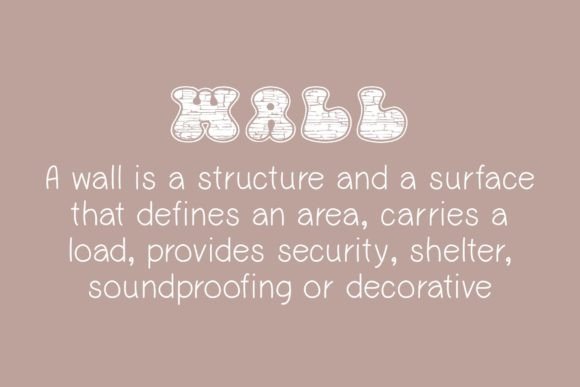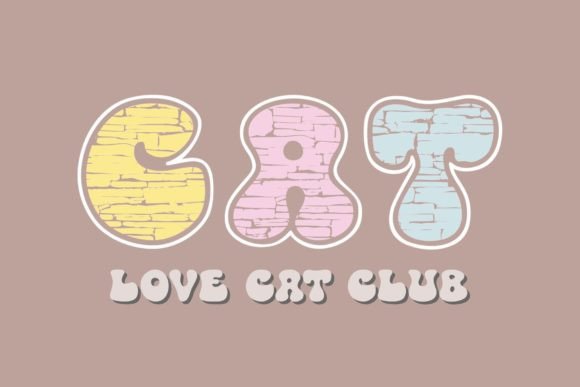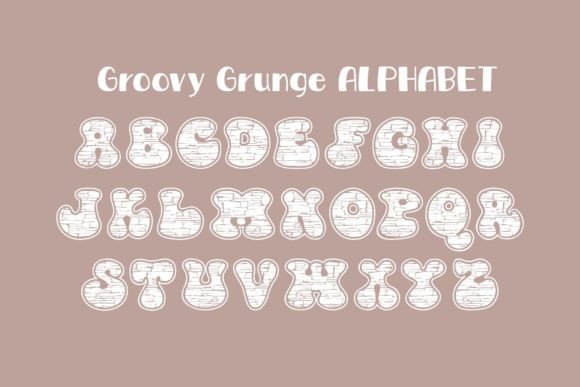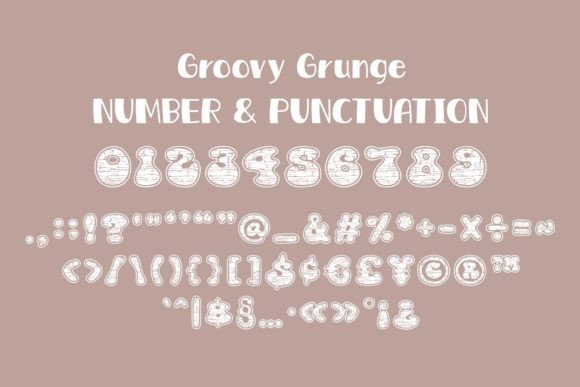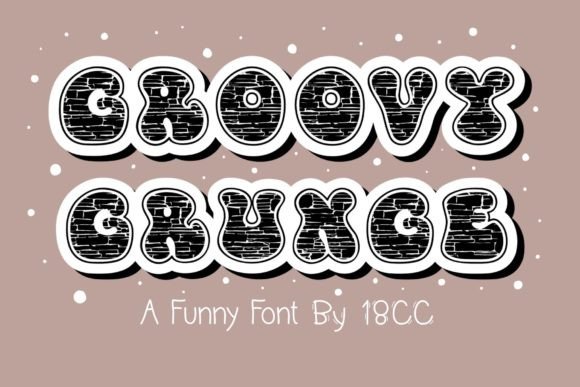
Groovy Grunge Font: The Perfect Addition to Your Design Arsenal
Are you a designer or crafter looking for a unique and eye-catching font to elevate your projects? Look no further than the Groovy Grunge Font! This vintage-inspired font is a game-changer for anyone seeking to add a touch of nostalgia and edginess to their designs. In this article, we’ll dive into the world of Groovy Grunge and explore its features, uses, and benefits.
What is Groovy Grunge Font?
Groovy Grunge is a carefully crafted font that embodies the spirit of the 70s and 80s, with a dash of modern grunge flair. This font is perfect for designers and crafters who want to add a distinctive touch to their work, whether it’s for logos, branding, social media graphics, or DIY projects. With its distressed and worn look, Groovy Grunge Font is sure to make your designs stand out from the crowd.
Key Features of Groovy Grunge Font
- Vintage Inspiration: Groovy Grunge Font draws inspiration from the classic fonts of the 70s and 80s, with a modern twist.
- Grunge Texture: The font features a unique grunge texture that gives it a worn, distressed look.
- Highly Versatile: Groovy Grunge Font can be used for a wide range of projects, from logos and branding to social media graphics and DIY crafts.
- Easily Customizable: The font is easy to customize, allowing you to adjust the size, color, and style to fit your design needs.
Uses for Groovy Grunge Font
Groovy Grunge Font is an incredibly versatile font that can be used for a variety of projects, including:
- Logos and Branding: Create a unique and memorable logo for your business or brand with Groovy Grunge Font.
- Social Media Graphics: Add a touch of personality to your social media graphics, such as Instagram posts, Facebook covers, and Twitter headers.
- DIY Crafts: Use Groovy Grunge Font to add a personal touch to your DIY projects, such as handmade cards, scrapbooking, and woodworking.
- Print-on-Demand Products: Create unique and eye-catching designs for print-on-demand products, such as t-shirts, mugs, and phone cases.
Benefits of Using Groovy Grunge Font
By incorporating Groovy Grunge Font into your design arsenal, you’ll enjoy several benefits, including:
- Unique Designs: Groovy Grunge Font allows you to create unique and eye-catching designs that stand out from the crowd.
- Time-Saving: The font is easy to use and customize, saving you time and effort in your design process.
- Professional Look: Groovy Grunge Font gives your designs a professional, polished look that’s sure to impress.
- Endless Creative Possibilities: With Groovy Grunge Font, the creative possibilities are endless, allowing you to experiment with different designs and styles.
Tips for Using Groovy Grunge Font
To get the most out of Groovy Grunge Font, here are some tips to keep in mind:
- Experiment with Colors: Try pairing Groovy Grunge Font with different colors to create unique and eye-catching designs.
- Play with Texture: Experiment with different textures and patterns to add depth and interest to your designs.
- Keep it Simple: Don’t be afraid to keep your design simple and clean, allowing Groovy Grunge Font to take center stage.
Groovy Grunge Font is a game-changing font that’s perfect for designers and crafters looking to add a touch of nostalgia and edginess to their designs. With its unique grunge texture, vintage inspiration, and high versatility, this font is sure to become a staple in your design arsenal. Whether you’re creating logos, social media graphics, or DIY projects, Groovy Grunge Font is the perfect choice. So why wait? Get creative with Groovy Grunge Font today and take your designs to the next level!